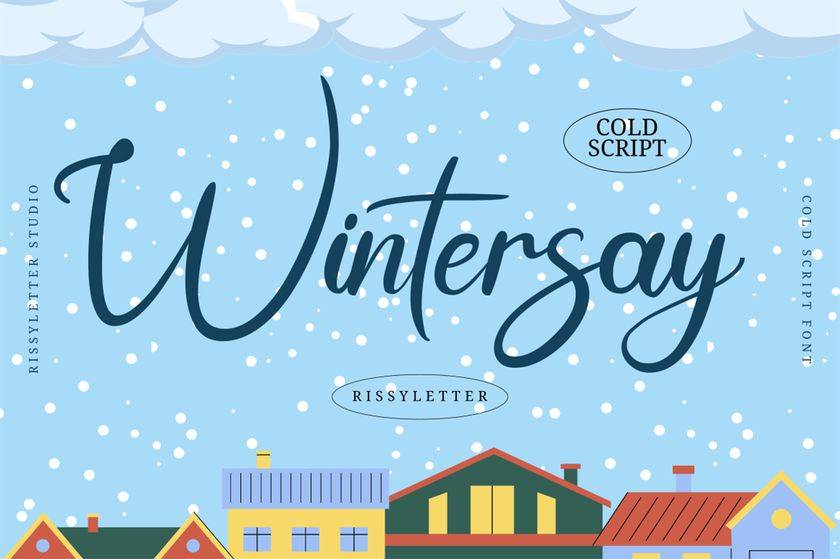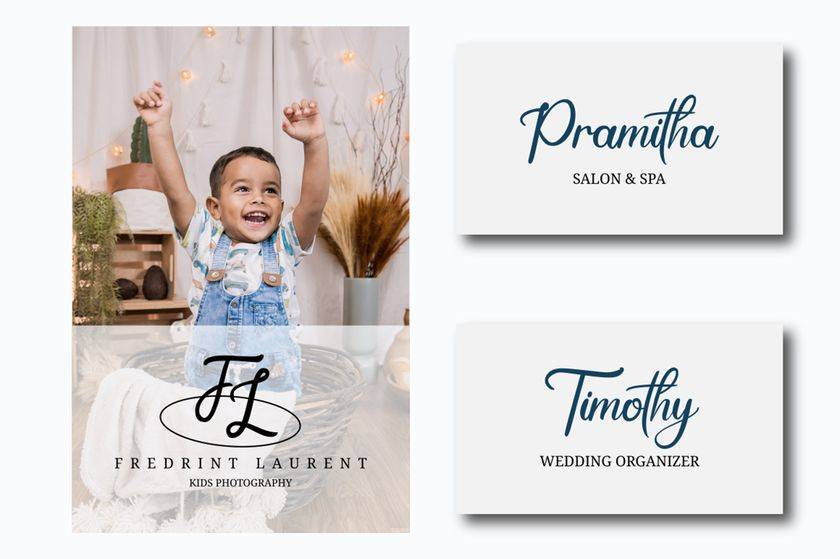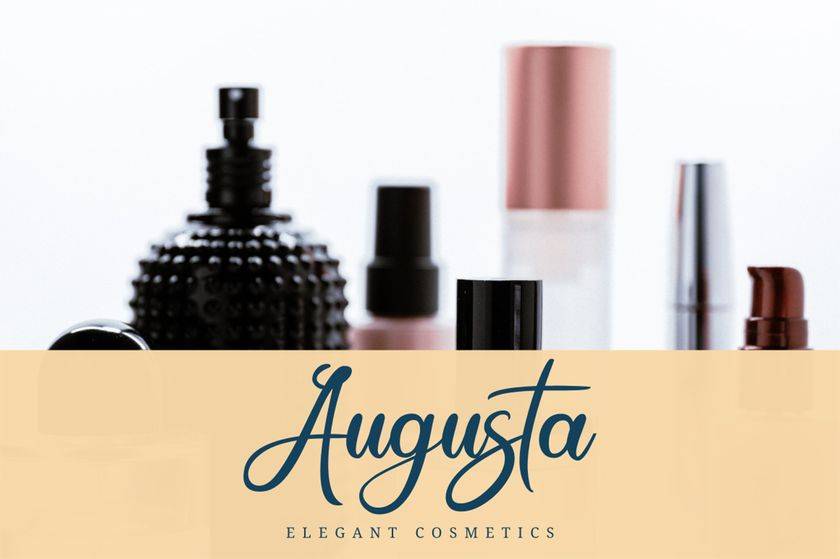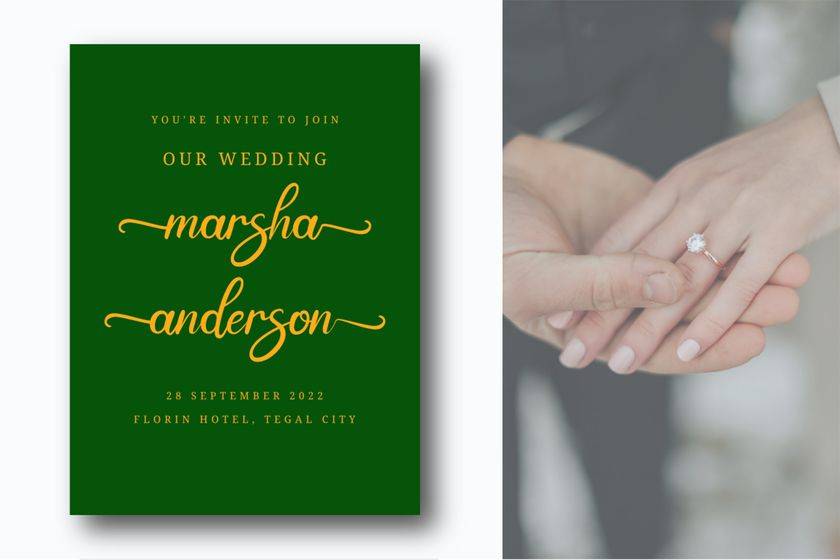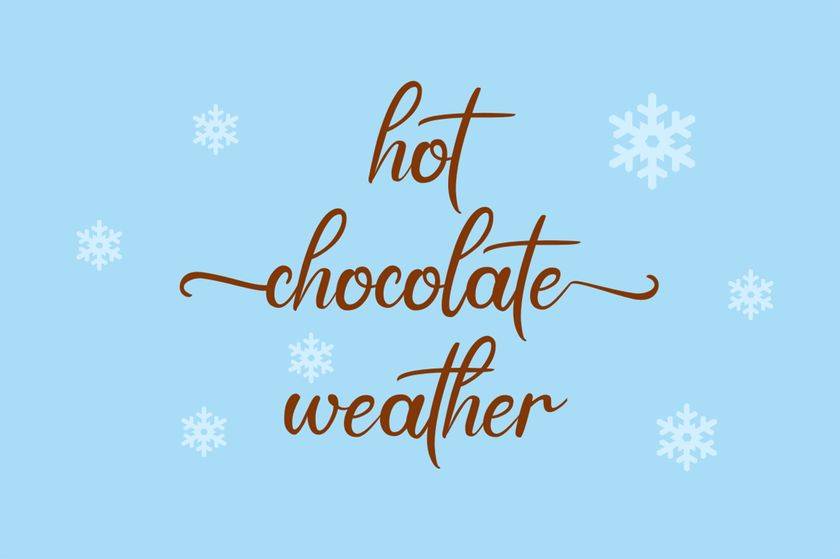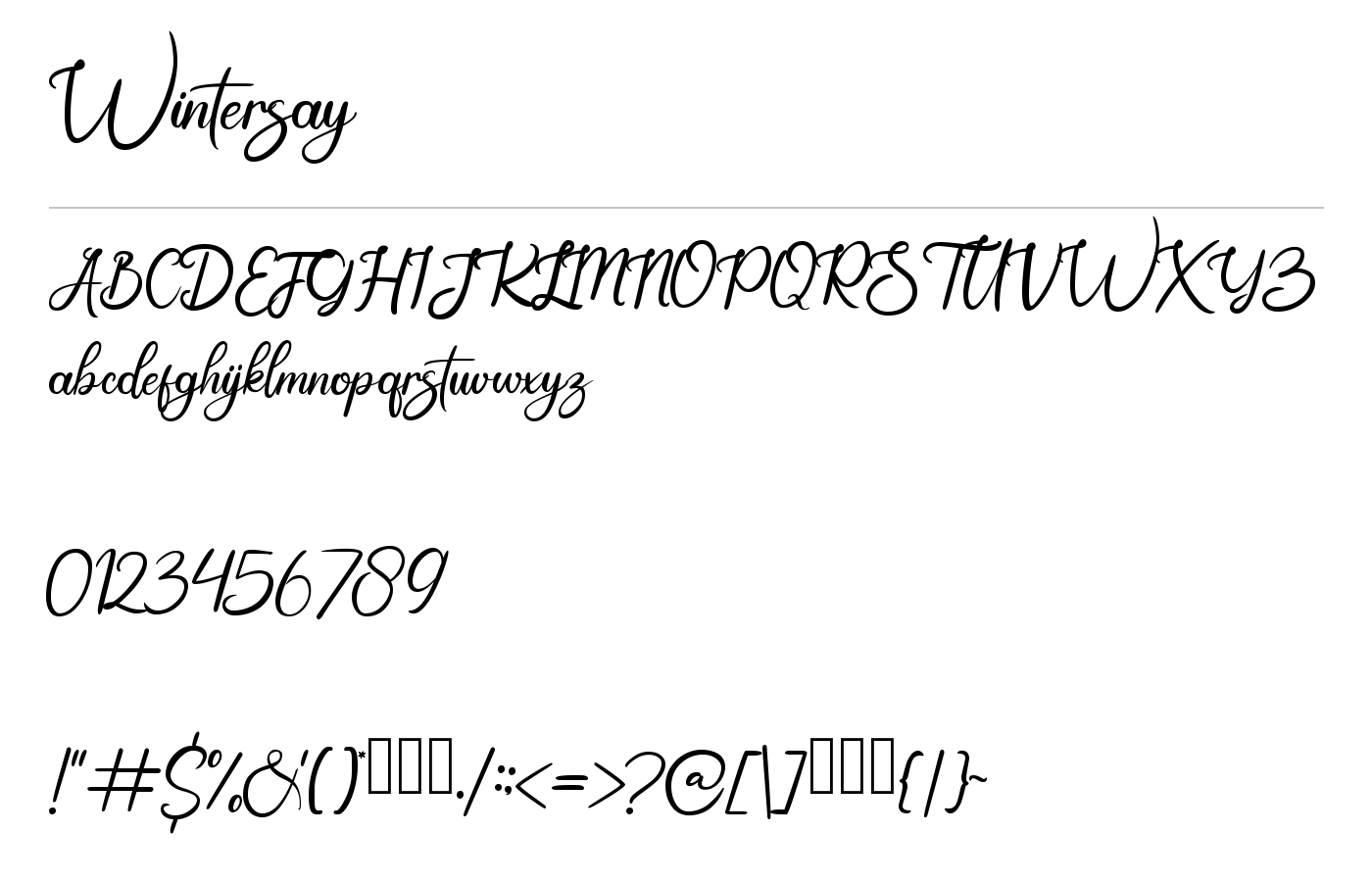
Wintersay is a graceful script font featuring elegant, flowing letterforms with a light weight and smooth strokes that convey a sense of sophistication and charm. Its delicate curves and slightly condensed style make it ideal for stylish invitations, branding, and headlines seeking a refined, personal touch. This font works beautifully in fashion, wedding designs, and upscale packaging where a modern yet approachable calligraphic feel is desired.
Wintersay Font
About Wintersay Font